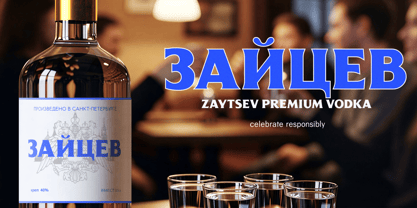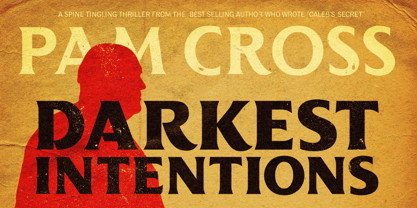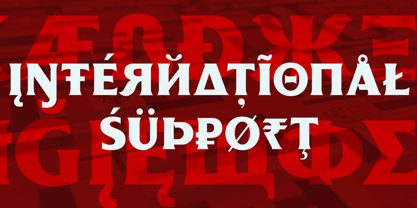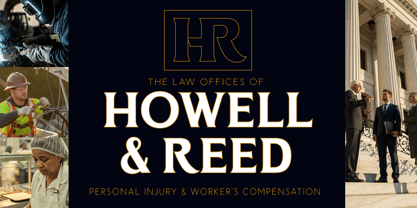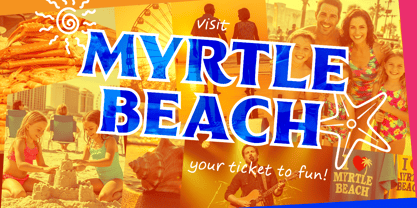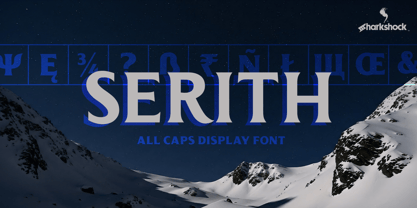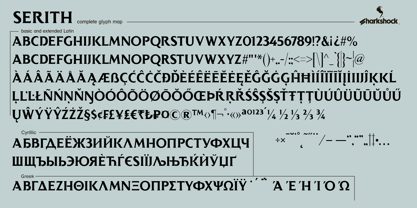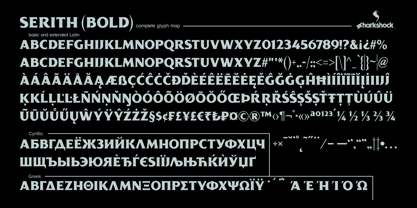
Serith
Serith is an all caps display font featuring a sharp, chiseled appearance. Inspiration came from various works with roots reaching back to the days of Greek engraving. This family is defined by wispy serifs, a high contrast, and a tendency for negative space. Capitals such as B, D, and H feature bowls or cross bars that are either partially or completely sheared off. Use it for a book cover, product label, or signage. Serith is equipped with Basic and Extended Latin, diacritics, Cyrillic, Greek, punctuation, kerning, and is available in 2 different versions. Please check the glyph maps for all supported characters.